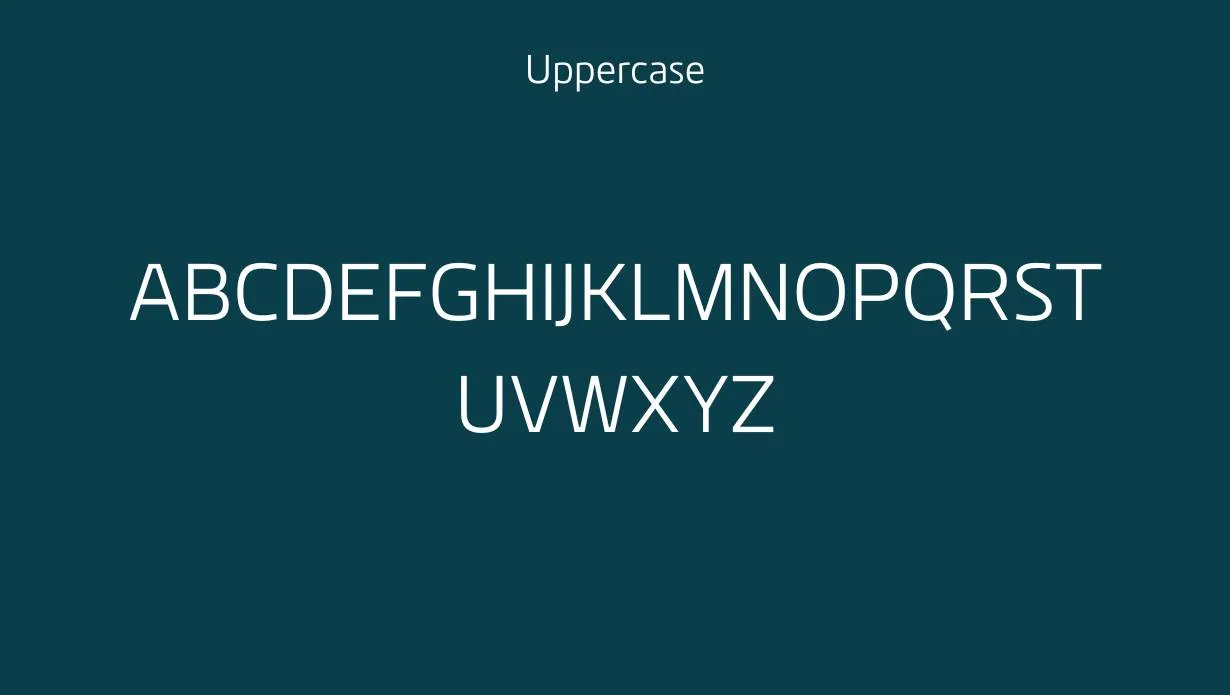
Kuro Font was designed by Jonathan Hill and manufactured by The Northern Black. It was launched in 2011. It has geometric shapes that look good on all personal and commercial projects.
It has high readability and an attractive look with amazing features like it contains 484 characters, 451 glyphs, and 1000 units per Em.
| Name | Kuro Font |
| Designer | Jonathan Hill |
| Style | Sans Seirf |
The weight of the font is semi-light and its width is medium(normal). You can also use it for pairing with other fonts like epitet font to give a more attractive look to your projects.